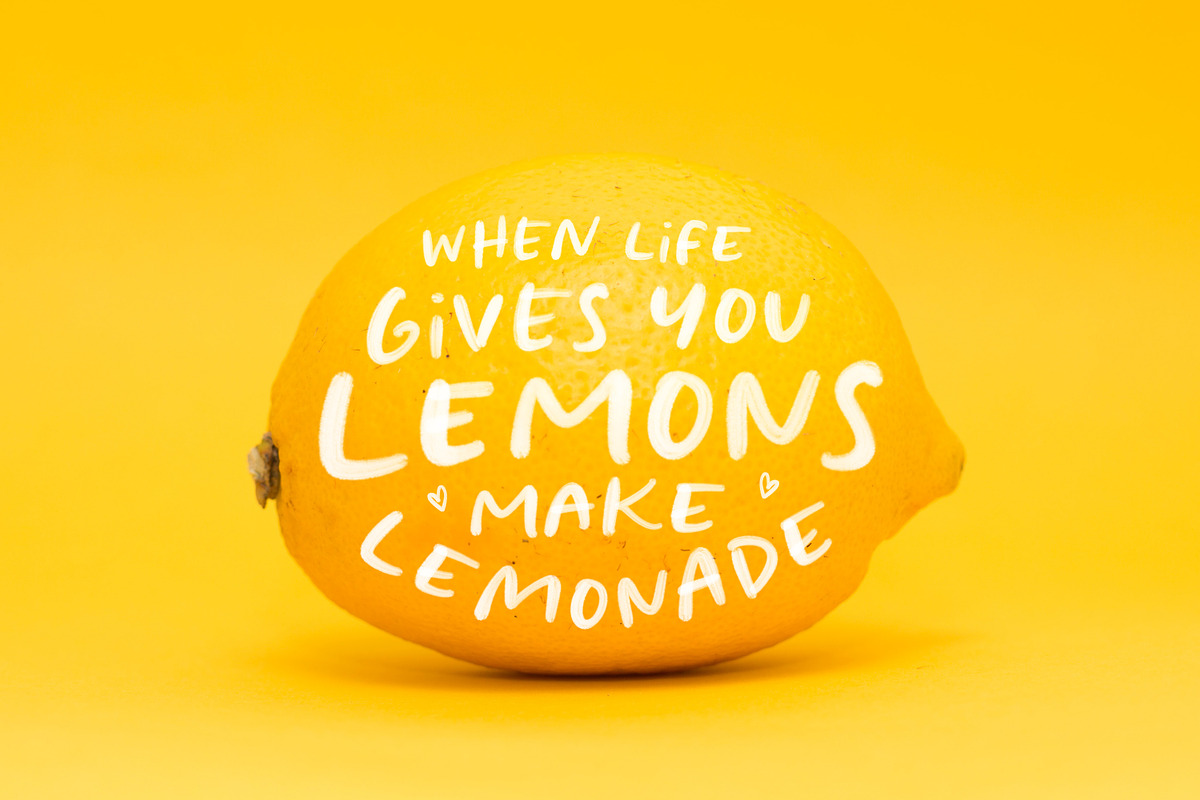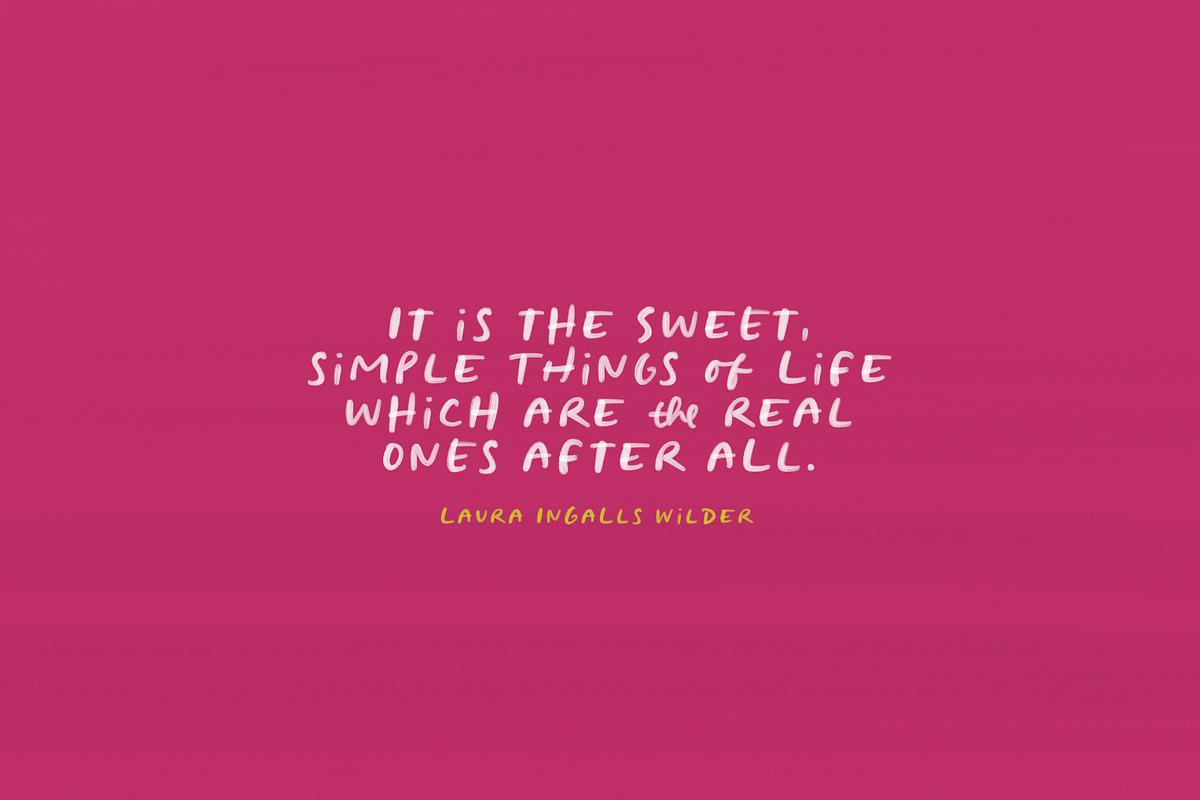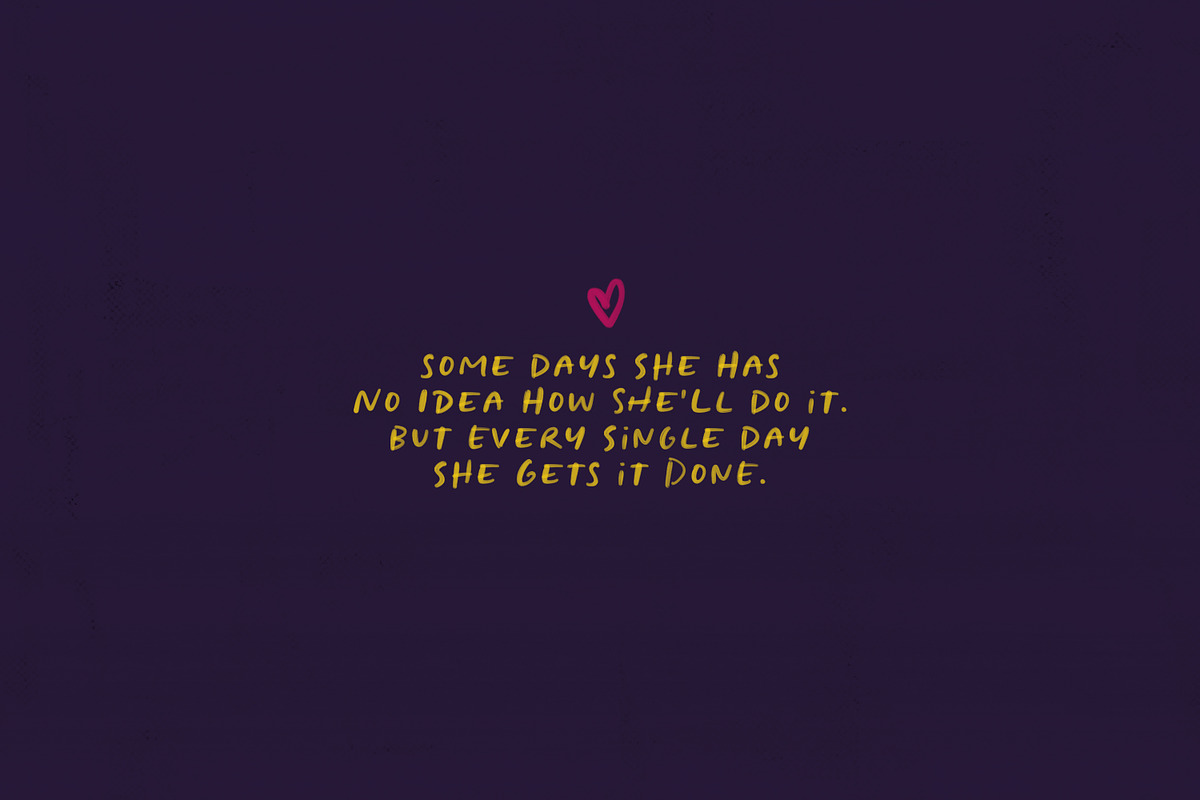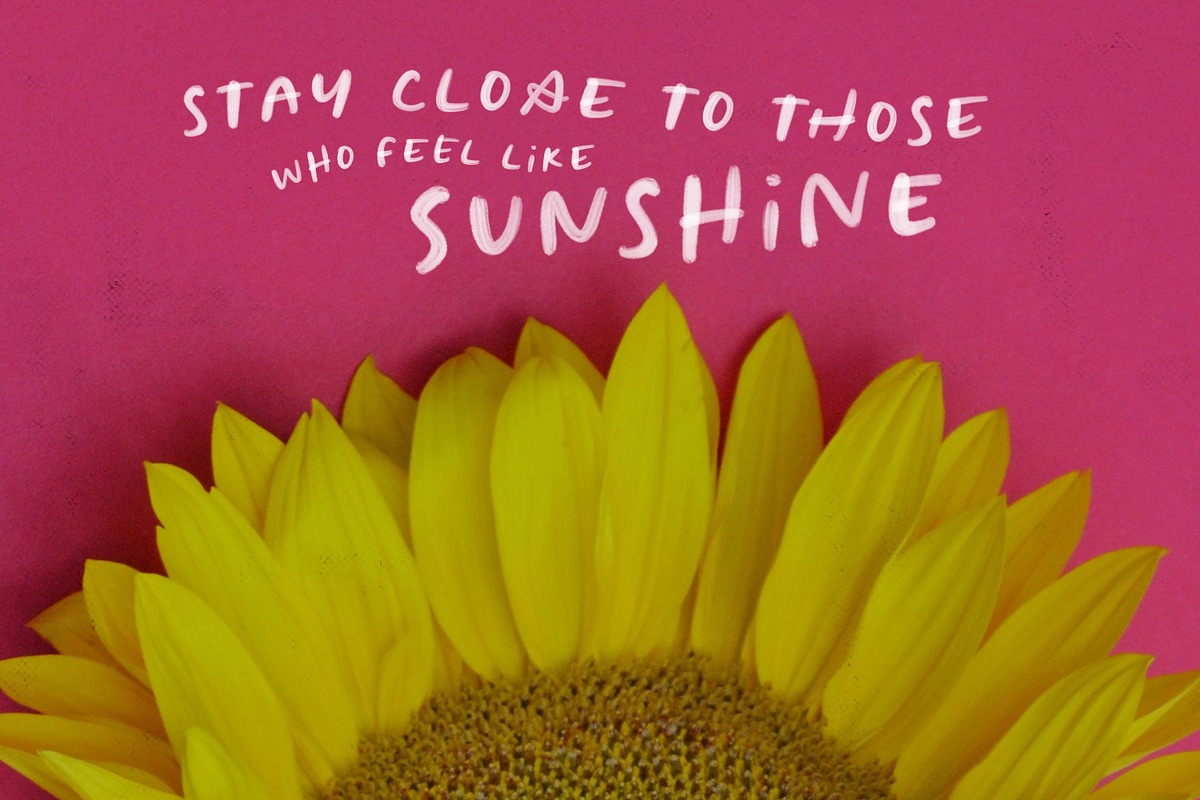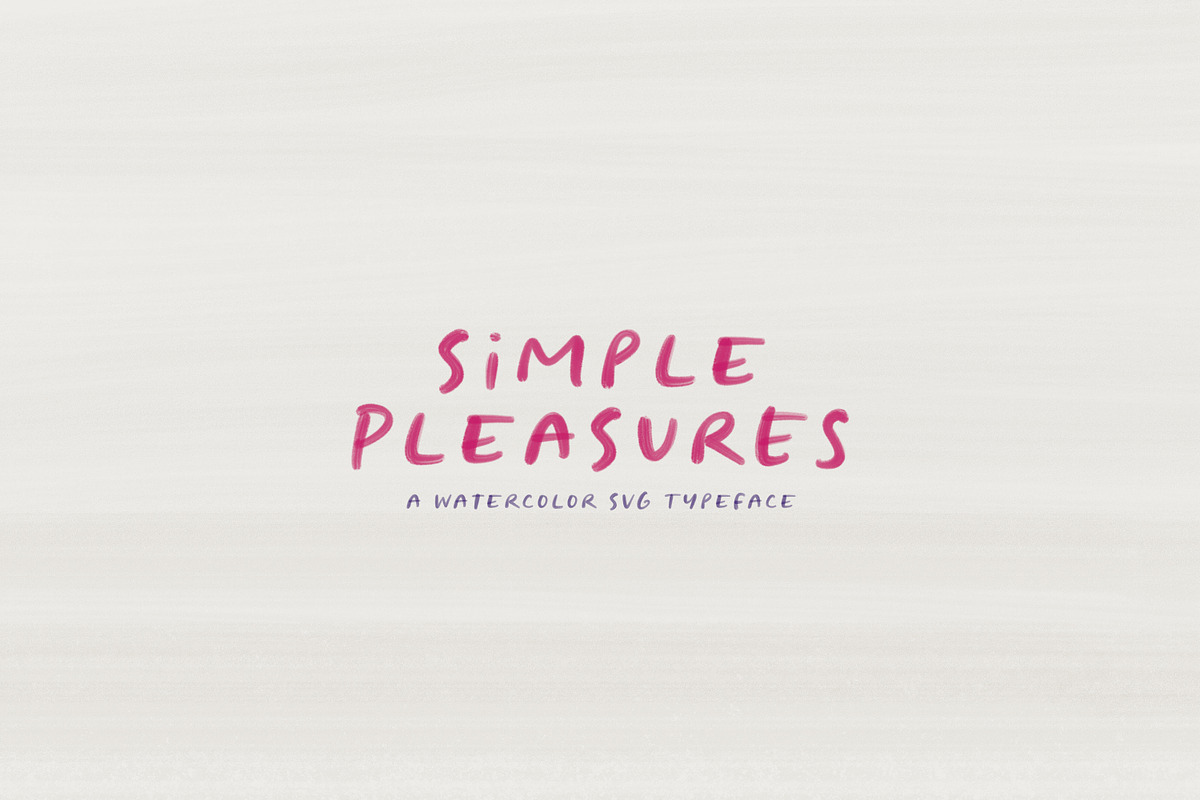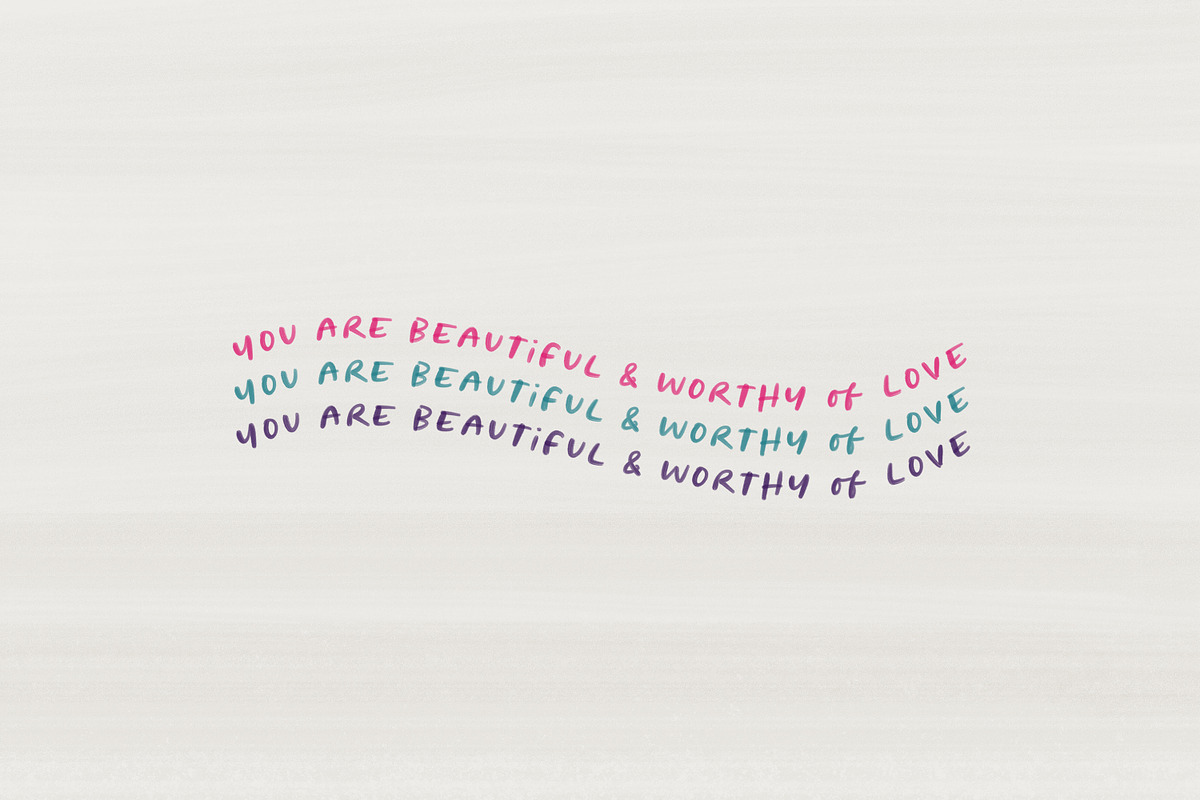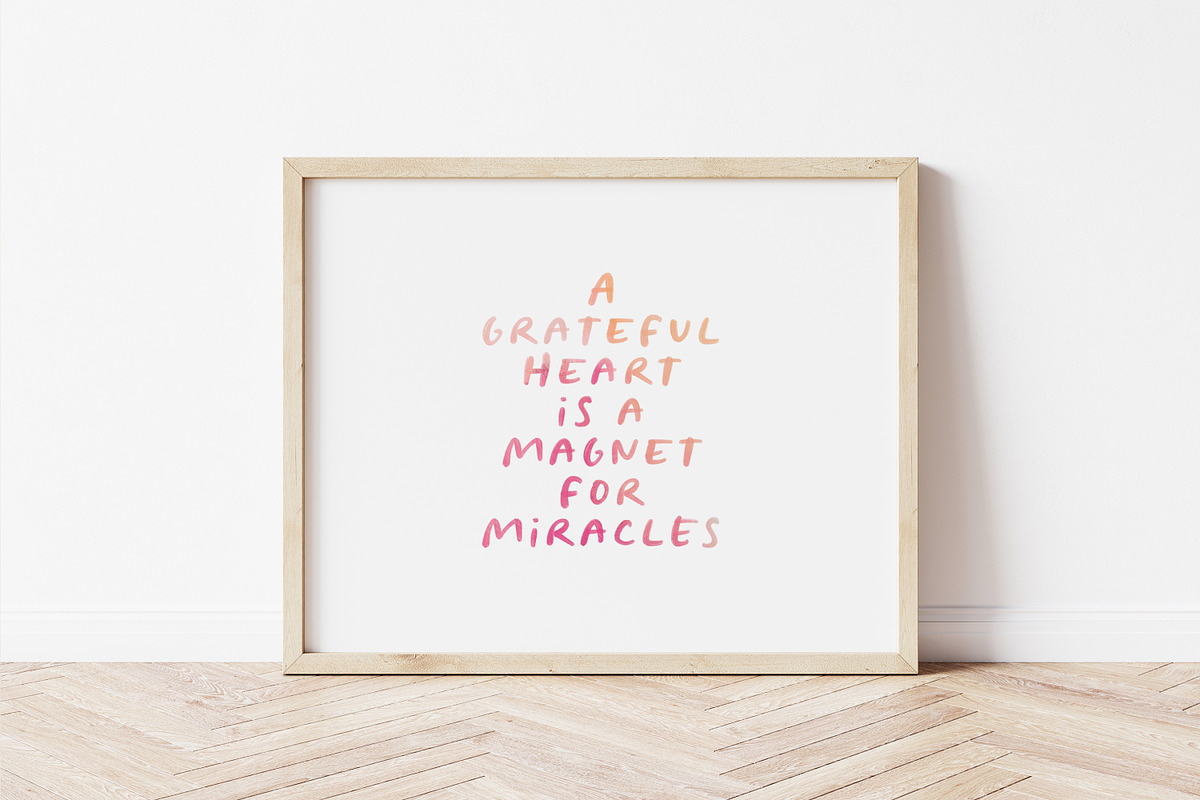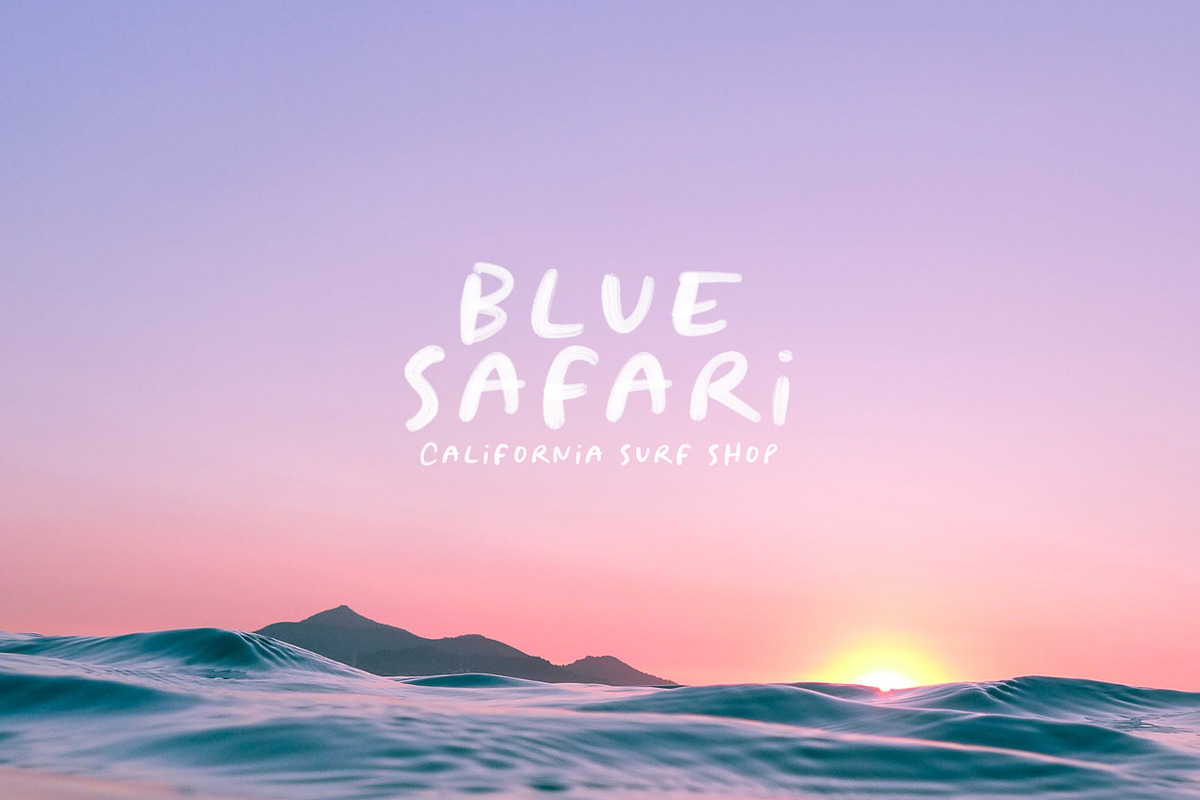
Simple Pleasures | Watercolor SVG
Say hello to Simple Pleasures, a handmade watercolor SVG typeface with transparent bitmap glyphs, including select alternates and catchwords. Simple Pleasures was designed specifically for trendy social media posts, but also works beautifully with typography projects, branding and advertising.
Simple Pleasures (SVG) - The star of the show! This lovely hand painted typeface contains transparent brush strokes, select alternates & Western European accents that you can use in a pinch if you need a language-supported glyph.
Simple Pleasures (SOLID) - A traditional vector version for good measure. Note: Both fonts were made with different software, so the kerning and size won't be exact between fonts.